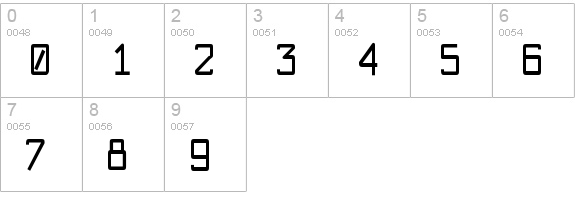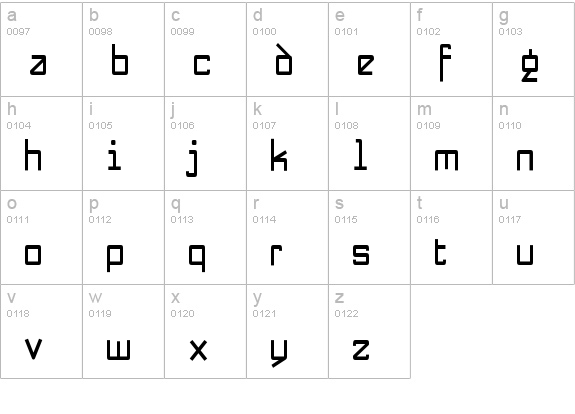
ReykjavikBold Font Details
ReykjavikBold font is a visually stunning typeface that captivates with its bold and modern design. Created with meticulous attention to detail, this font exudes confidence and strength, making it perfect for eye-catching headlines, logos, and branding projects. The strong and assertive letterforms of ReykjavikBold demand attention, while its clean and crisp lines add a touch of sophistication. The generous spacing between each character ensures maximum readability, even at smaller sizes. What sets ReykjavikBold font apart is its versatility. It effortlessly adapts to different contexts, whether it's used for a fashion magazine, a trendy startup logo, or a tech-forward website. It's a true chameleon font that effortlessly blends into any design concept. And the best part? ReykjavikBold font is freely available to download at FontsMarket.com. This means that you can easily access this high-quality font and incorporate it into your creative projects without any hassle. With just a few clicks, you can bring a touch of elegance and boldness to your designs. Whether you're a professional designer looking for a typeface that makes a statement or an amateur enthusiast wanting to enhance your personal projects, ReykjavikBold font is the perfect choice. Download it today from FontsMarket.com and let your creativity soar to new heights.